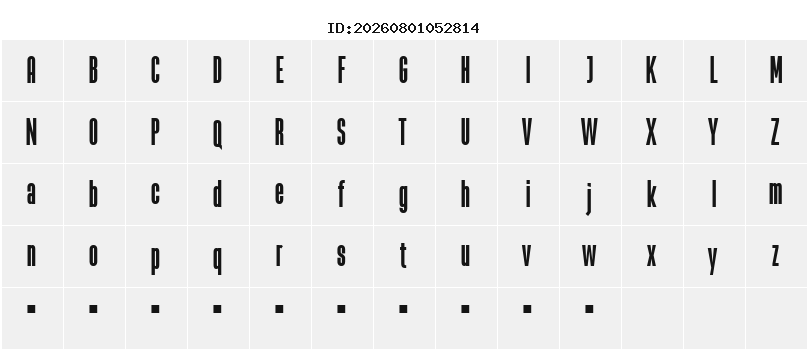
La Babaca Preview
• Font Name: La Babaca
• Designer: Fernando Haro
• Manufacturer: deFharo
About La Babaca.ttf
La Babaca.ttf is a modern, elegant sans-serif font designed for ultimate readability and visual harmony. Perfect for branding, headlines, web design, and print materials.